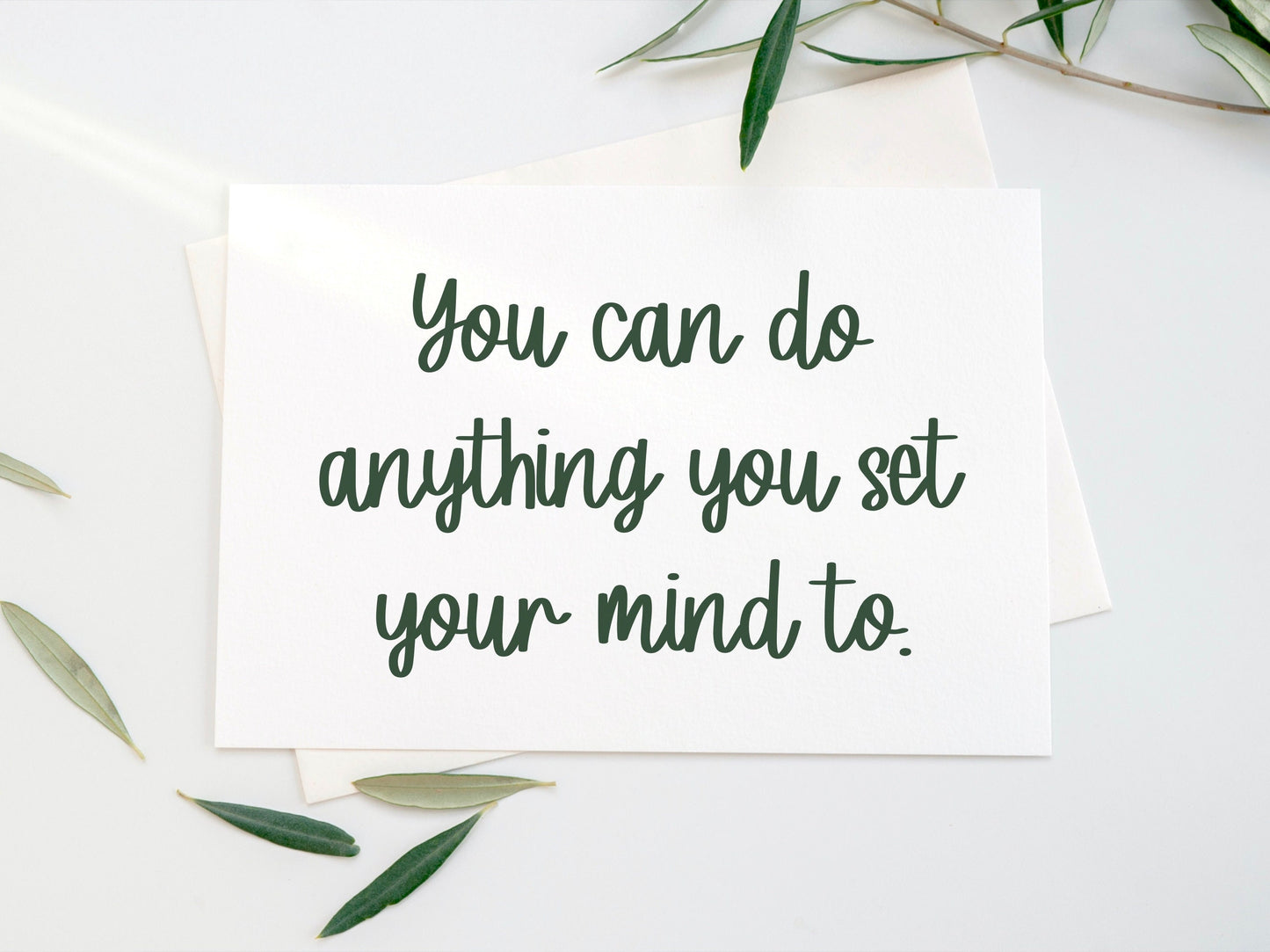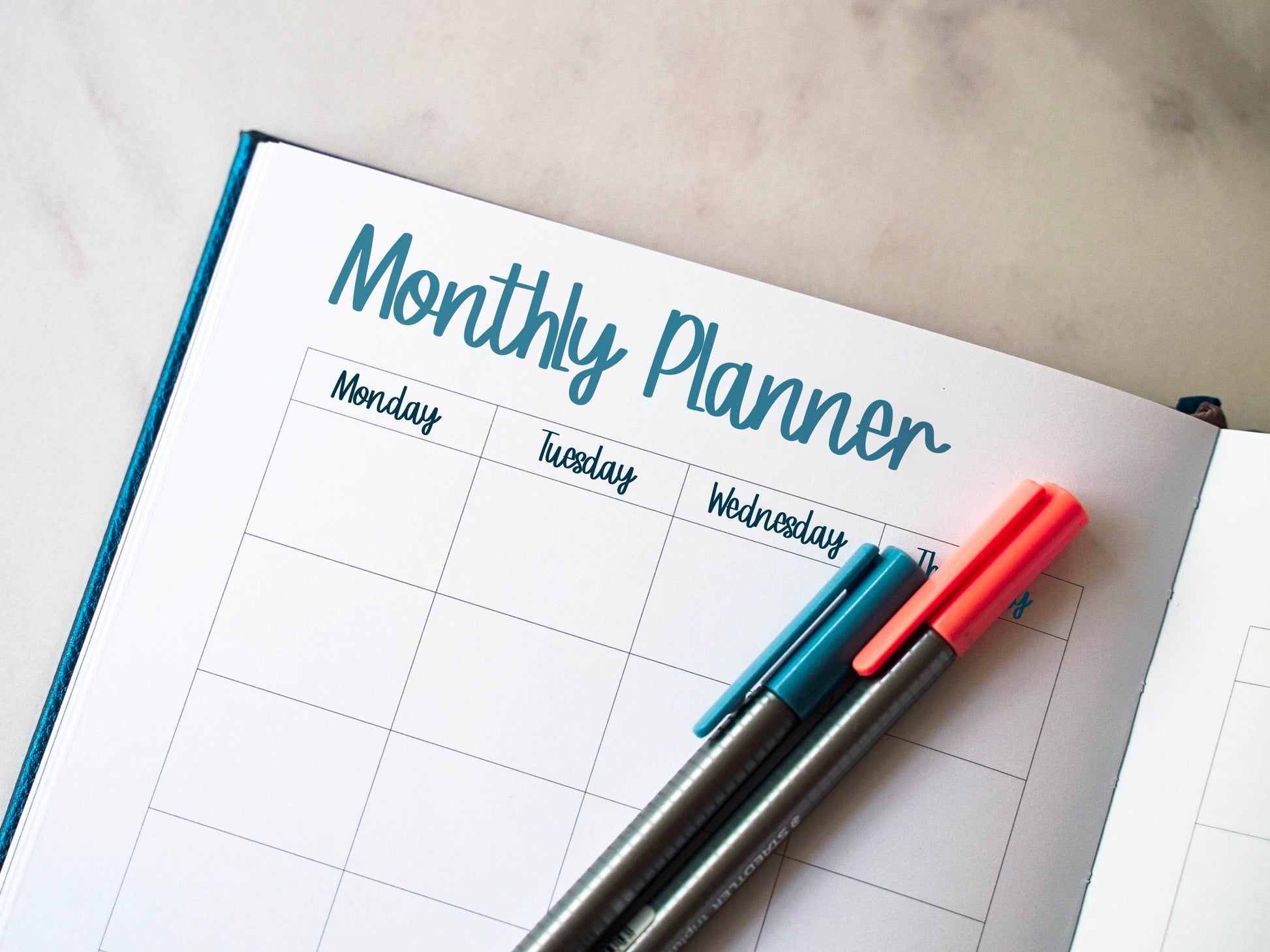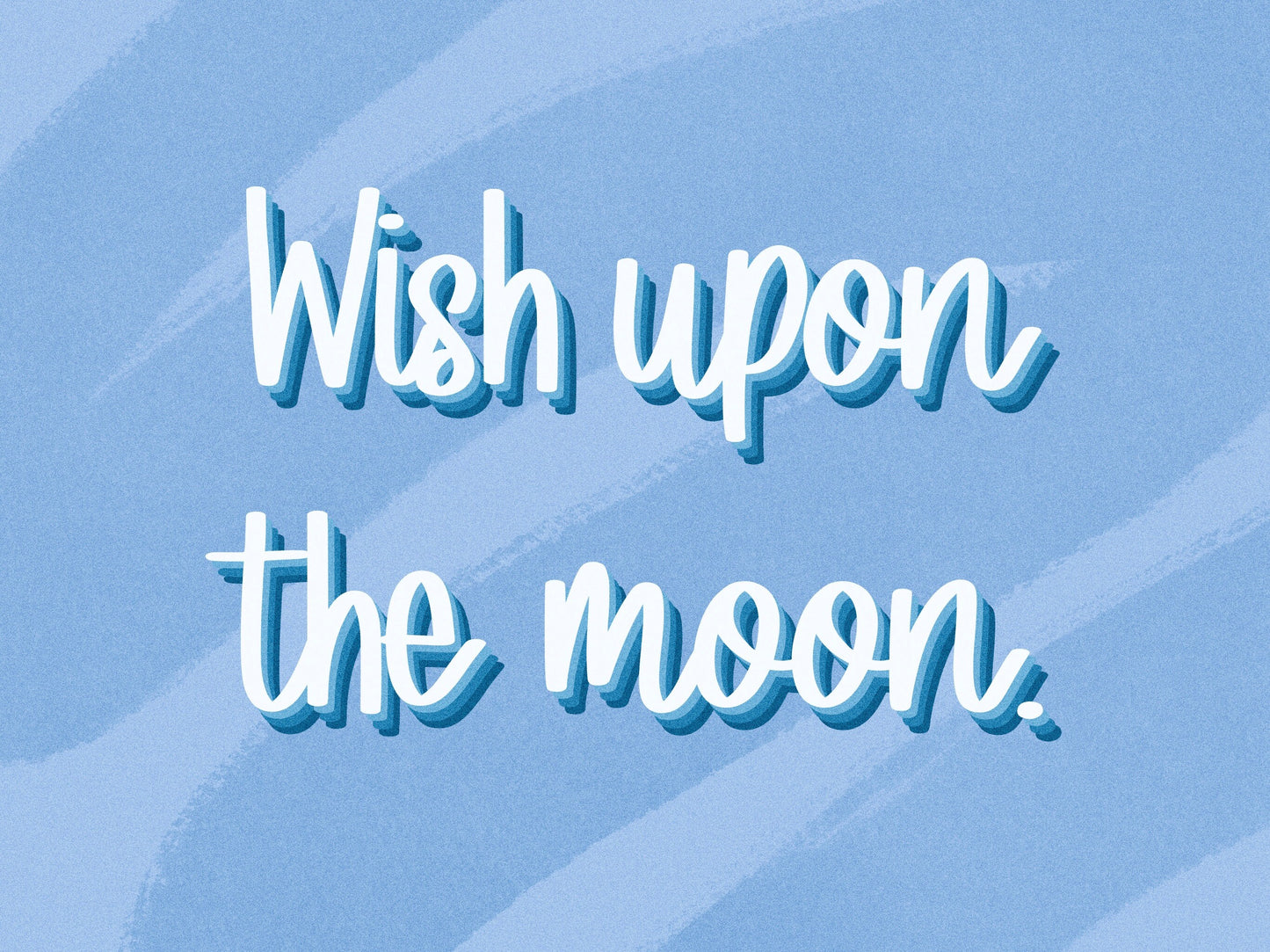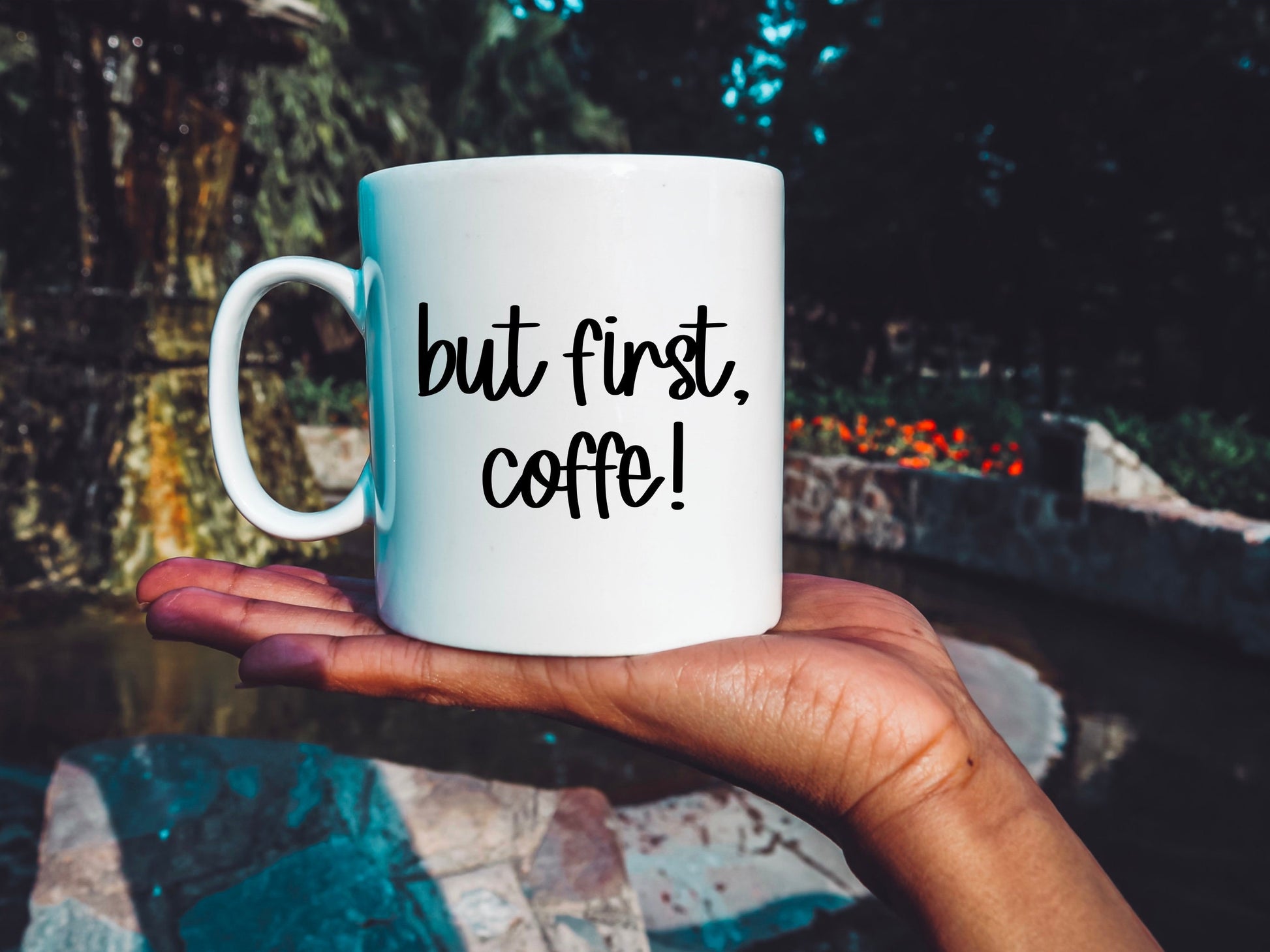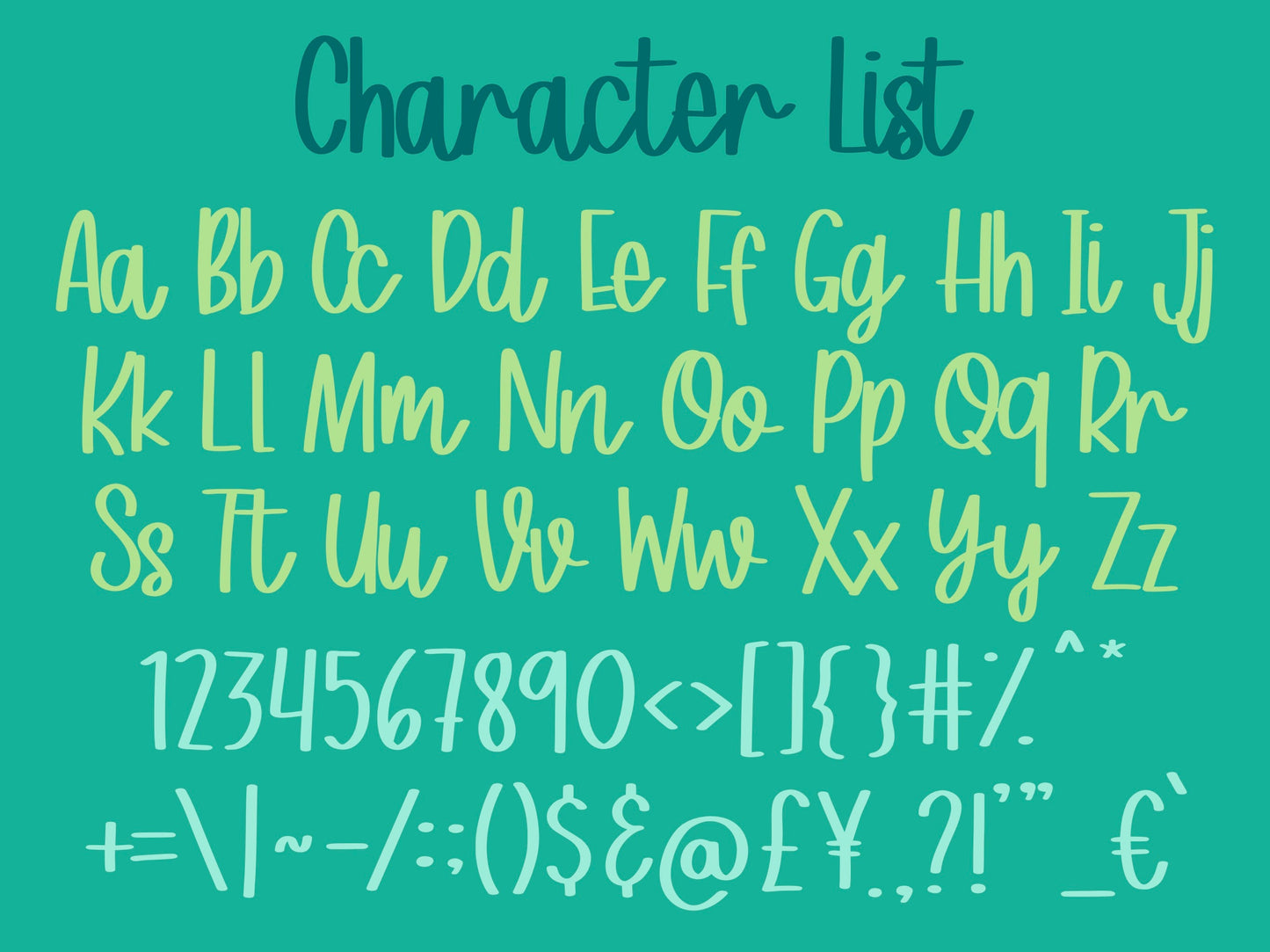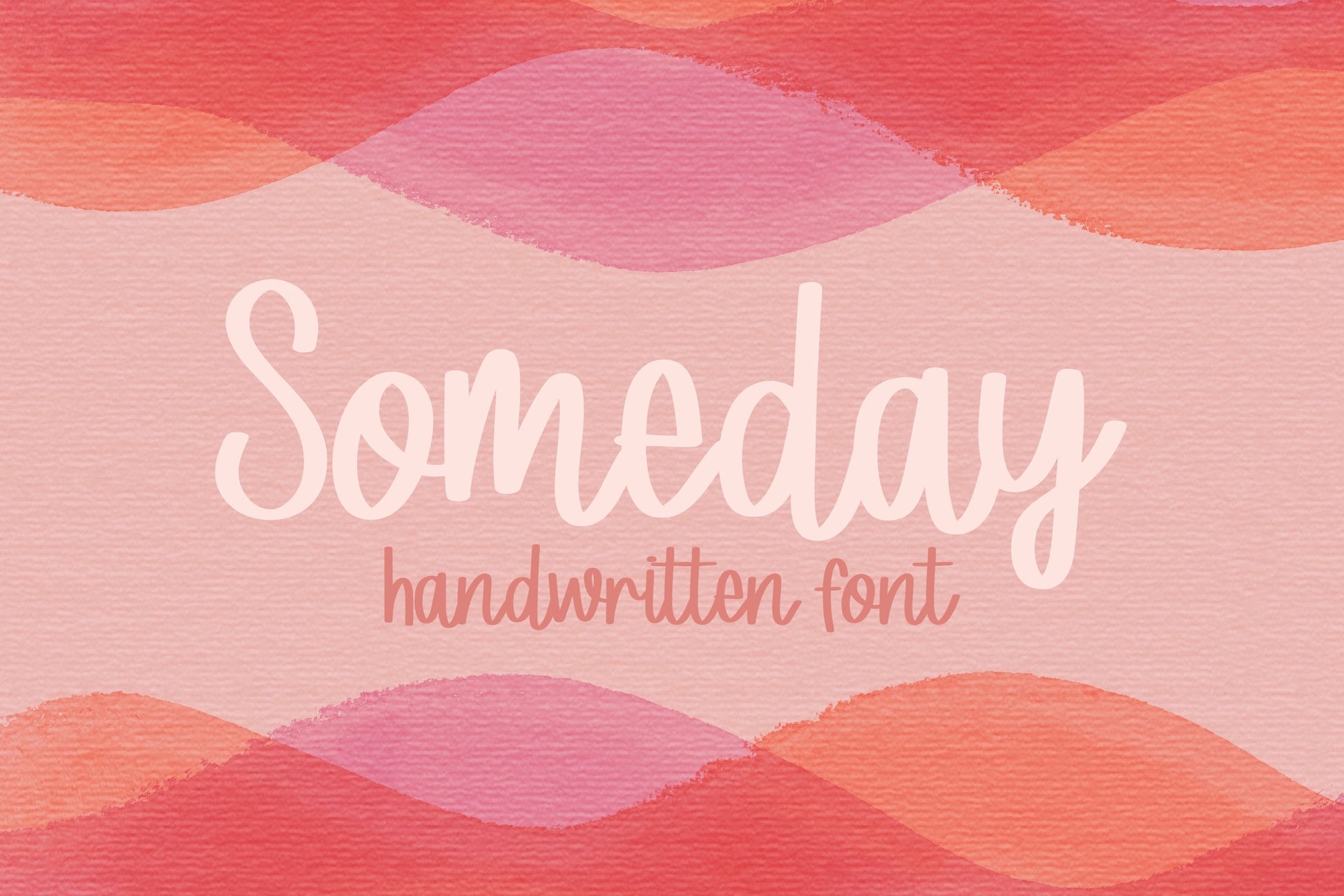
Someday Handwritten Font
This is my Someday handwritten/hand drawn font. This is a casual, unique font that will add a fun, quirky, handmade touch to your design! Perfect for invitations, quote designs, stickers, posters, t-shirts, and anything else you can think of!